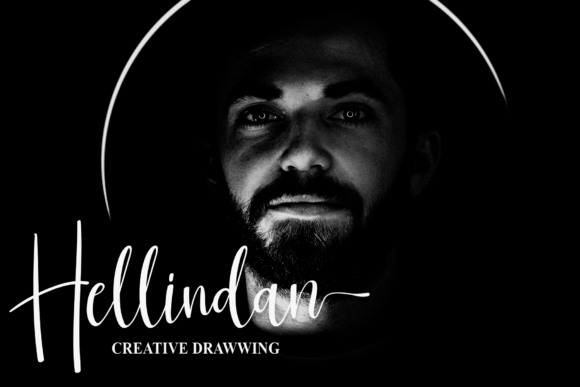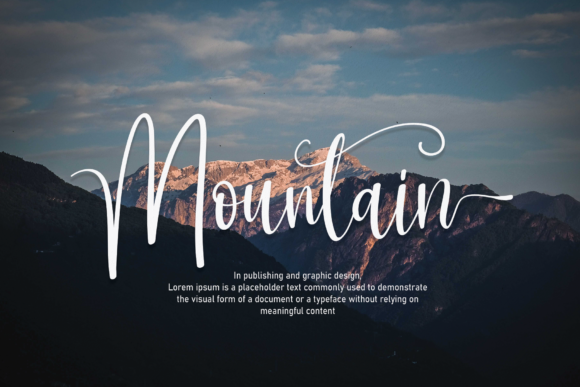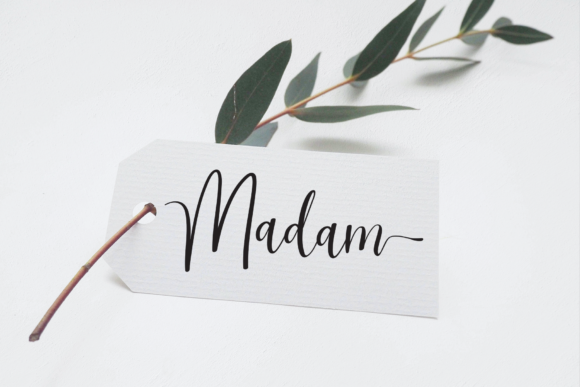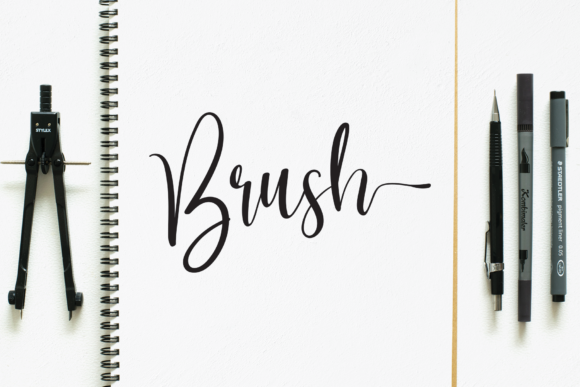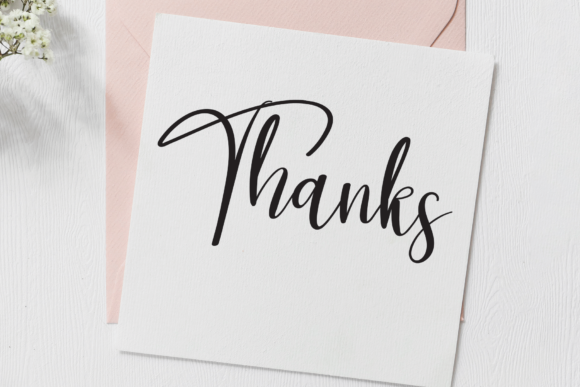
Introducing American Font: Elevate Your Designs with a Touch of Elegance
Are you on the hunt for a font that exudes modern sophistication and a natural flair? Look no further than the American Font, a stunning cursive and stylish handwritten font that’s perfect for designers and crafters seeking to add a unique touch to their projects.
What Makes American Font Stand Out?
American Font is a beautifully crafted typeface that boasts a modern and natural aesthetic. Its cursive and handwritten style lends itself perfectly to a wide range of design applications, from elegant wedding invitations to eye-catching social media post logos. The font’s unique character and fluid strokes make it an excellent choice for anyone looking to add a touch of personality to their work.
With American Font, the design possibilities are endless. Here are just a few ideas to get you started:
- Wall Displays: Create stunning wall art with American Font, perfect for adding a touch of personality to any room.
- Wedding Invitations: Make your special day even more memorable with elegant and sophisticated wedding invitations featuring American Font.
- Social Media Post Logos: Elevate your social media presence with eye-catching logos and graphics created with American Font.
- Advertisements: Grab attention with bold and stylish advertisements that showcase the unique character of American Font.
- Product Packaging: Add a touch of luxury to your product packaging with American Font, perfect for high-end brands and products.
- Product Designs: Create stunning product designs that showcase the beauty of American Font, from labels to watermarks and more.
- Invitations: From birthday invitations to baby showers, American Font is the perfect choice for any special occasion.
- Stationery: Elevate your stationery with elegant and sophisticated designs featuring American Font.
Why Choose American Font?
So, why should you choose American Font for your next design project? Here are just a few reasons:
- Unique Typography: American Font offers a unique and stylish typography that will set your designs apart from the rest.
- Modern and Natural Aesthetic: The font’s modern and natural aesthetic makes it perfect for a wide range of design applications.
- Elegant and Sophisticated: American Font exudes elegance and sophistication, making it perfect for high-end brands and products.
- Easy to Read: Despite its cursive and handwritten style, American Font is easy to read and understand, making it perfect for body text and headlines.
Tips for Using American Font
Here are a few tips for getting the most out of American Font:
- Use it Sparingly: American Font is a statement font, so use it sparingly to make a big impact.
- Pair it with Other Fonts: Experiment with pairing American Font with other fonts to create a unique and eye-catching design.
- Play with Size and Color: Don’t be afraid to experiment with different sizes and colors to add depth and interest to your design.
American Font is a stunning cursive and stylish handwritten font that’s perfect for designers and crafters seeking to add a touch of elegance and sophistication to their projects. With its modern and natural aesthetic, unique typography, and endless design possibilities, American Font is the perfect choice for anyone looking to elevate their designs and make a lasting impression.